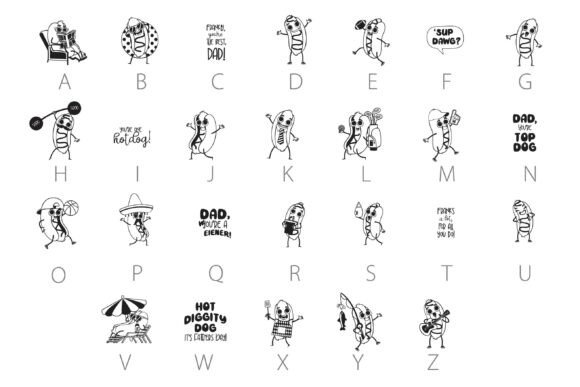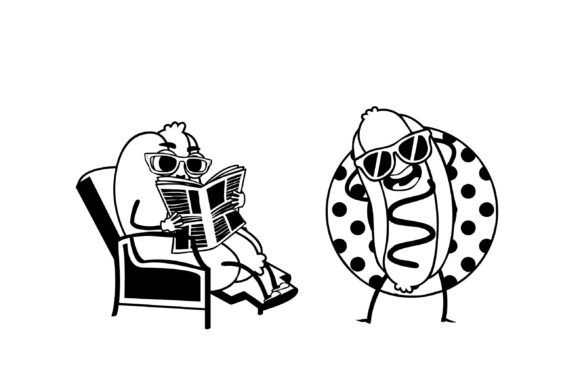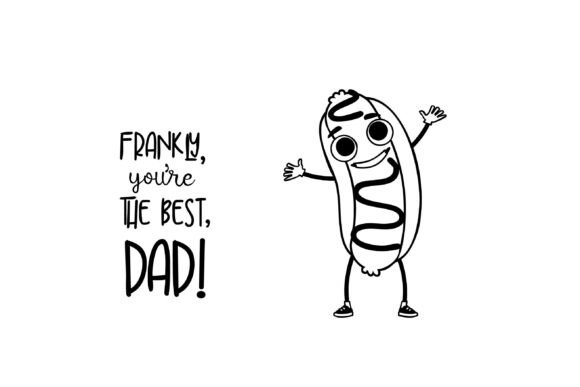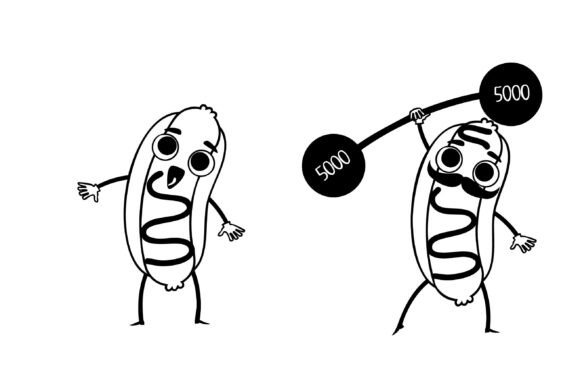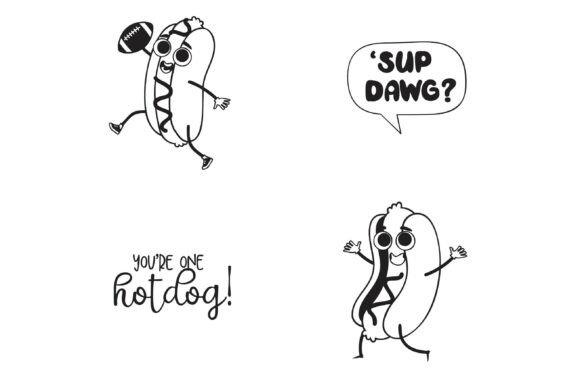
Designing the Perfect Tribute to Dad
Have you ever been stuck on a design project, struggling to find the perfect visual element to capture the essence of your idea? It’s a frustrating feeling, but one that’s all too familiar to designers everywhere. For those looking to create a unique and heartfelt tribute to the “top dog” in their life, we’ve got just the solution: Frankly the Best Dingbats Font.
This charming set of hot dog mascot dingbats is the perfect choice for Father’s Day card branding, boutique apparel graphics, and custom barbecue invitations. With its “punny-playful” soul and bold, comic-style line work, Frankly the Best Dingbats Font is the go-to resource for designers looking to add a little personality to their projects. Whether you’re creating a birthday card for your dad or a social media post to celebrate the day, this font is sure to bring a smile to anyone’s face.
Frankly the Best Dingbats Font Key Features
- Font Style: Dingbats, Ornamental Font
- Unique Characteristics: Features a wide range of decorative elements, including icons, symbols, and ornaments, making it ideal for creative and design-intensive applications
Review of “Frankly the Best Dingbats Font”
I recently had the chance to work with “Frankly the Best Dingbats Font” and I must say it’s a delightful addition to any design project. ✨ The font’s playful and whimsical nature makes it perfect for creating eye-catching headings and titles. The dingbats are well-designed and add a touch of personality to any text.
- The font is incredibly versatile and can be used in a variety of contexts, from children’s books to advertising campaigns.
- The dingbats are well-designed and consistent in style, making it easy to create cohesive and visually appealing designs.
- The font is highly customizable, allowing designers to adjust the size, color, and spacing to suit their needs.
While “Frankly the Best Dingbats Font” is a great addition to any designer’s toolkit, there are a few limitations to be aware of. ⚠️ The font can be quite ornate and may not be suitable for all types of text, such as body copy or long blocks of text. Additionally, the font may not be compatible with all operating systems or devices.
Overall, I’m impressed with “Frankly the Best Dingbats Font” and would highly recommend it to designers looking to add a touch of whimsy to their projects. While it may have some limitations, the font’s unique personality and versatility make it a valuable addition to any design library.
“Frankly the Best Dingbats Font” is perfect for creating playful, whimsical designs, such as:
– Infographics
– Party invitations
– Illustrations
– Logos